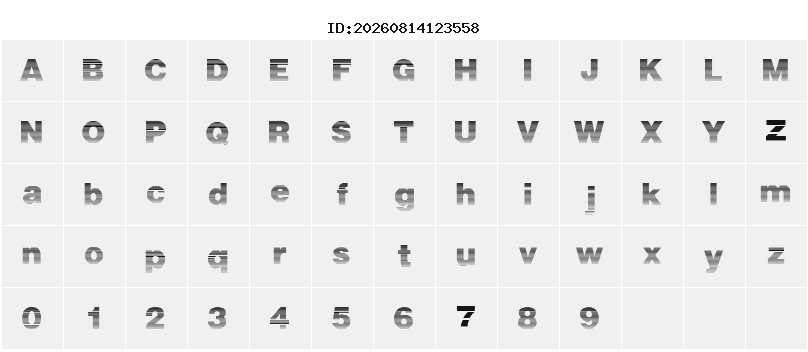
StripedSansBlack Preview
About StripedSansBlack.ttf
StripedSansBlack.ttf is a modern, elegant sans-serif font designed for ultimate readability and visual harmony. Perfect for branding, headlines, web design, and print materials.